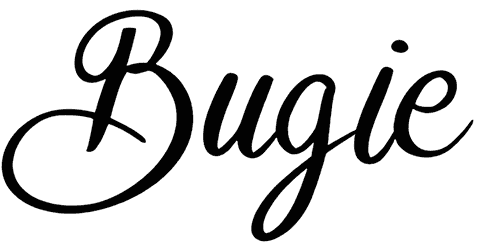
Bugie Font
For anyone who strives to absorb a natural vibe in the coming undertaking, here on the RB script font store is the best of both worlds. Bugie, with a manuscript face and feminine touch, moves smoothly to equip you with all A-Z characters.
You will be on the ball by sliding this A-Z font on any posters, greeting cards, quotes, and the rest. Take this feminine font; no longer are you resigned to consuming your time commencing to design one from scratch!